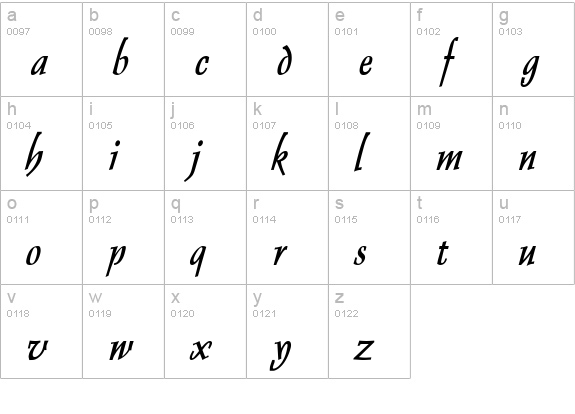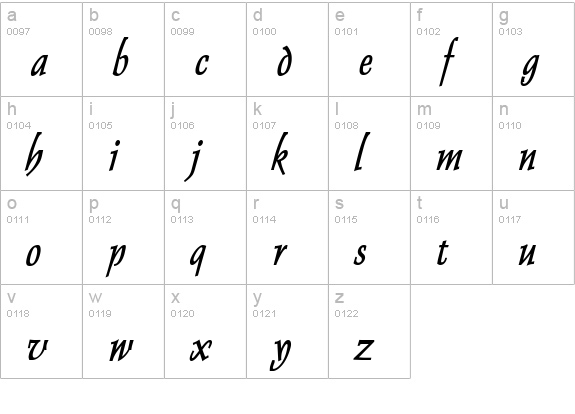
Dolphin Condensed Bold Italic is a strong, high-contrast, condensed-width, italic variant in the Dolphin typeface family \xE2\x80\x94 well suited to headlines, attention-grabbing titles, and strong calls-to-action.
Dolphin Condensed Bold Italic font is a modern and sleek typeface that exudes sophistication and elegance. Its bold and italic design adds a touch of flair to any project, making it perfect for headings, logos, and branding materials. The sleek and streamlined look of this font makes it versatile and suitable for a wide range of design applications. Best of all, Dolphin Condensed Bold Italic font is available for free download at FontsMarket.com. With its unique blend of boldness and elegance, this font is sure to make a bold statement in any design project. Whether you're creating a logo for a high-end brand or designing a stylish poster, Dolphin Condensed Bold Italic font is the perfect choice. Download it for free today and elevate your designs to the next level.